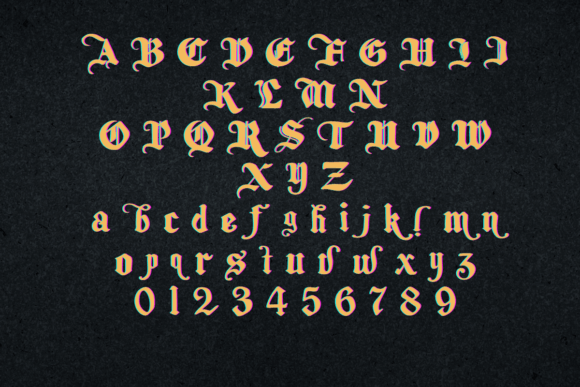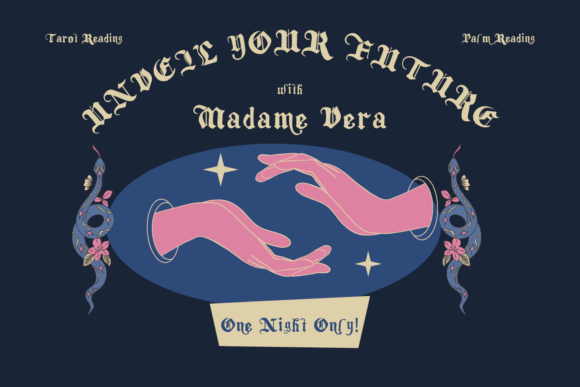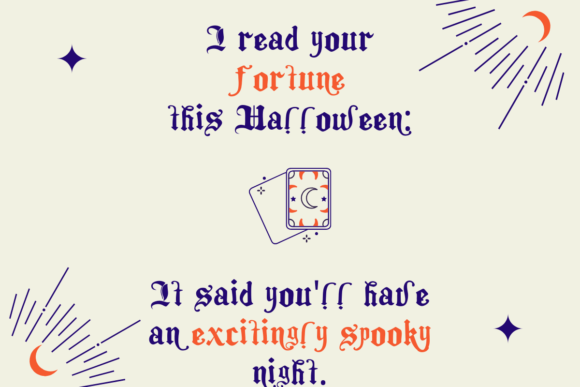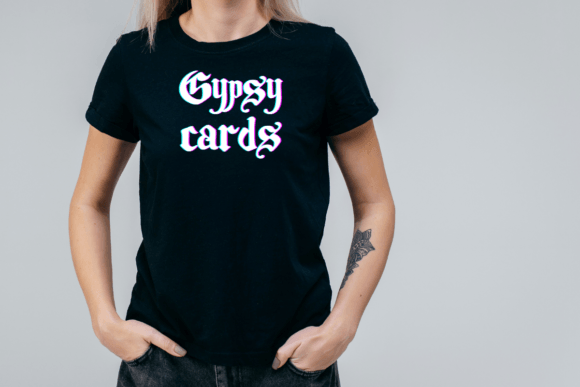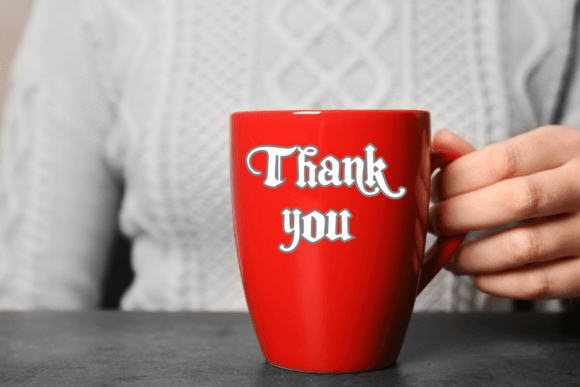
Introducing Gypsy Cards Font: Unleash the Mystique of Bold Blackletter Typography
In the realm of typography, few fonts evoke the same level of mystique and allure as the Gypsy Cards font. This bold blackletter display font is designed to make a statement, adding a touch of vintage charm to any design project. Whether you’re a designer looking to elevate your branding, a crafter seeking to add a personal touch to your creations, or simply someone who appreciates the art of typography, Gypsy Cards is sure to captivate your audience.
The Allure of Blackletter Typography
Blackletter fonts have a rich history, dating back to the Middle Ages. Characterized by their dramatic flourishes and bold strokes, these fonts were originally used for illuminated manuscripts and Gothic texts. Over time, blackletter typography has evolved, influencing various design movements, from Victorian-era ornates to modern-day digital art. Gypsy Cards font is a contemporary take on this classic style, infused with a unique blend of elegance and edginess.
What Makes Gypsy Cards Font Stand Out
So, what sets Gypsy Cards apart from other blackletter fonts? Here are a few key features that make it an exceptional choice for designers and crafters:
• Bold and Striking: Gypsy Cards font boasts a bold, eye-catching design that’s perfect for making a statement. Its striking style demands attention, ensuring your project stands out from the crowd.
• Vintage Charm: With its roots in traditional blackletter typography, Gypsy Cards exudes a sense of nostalgia and timelessness. This font is ideal for projects that require a touch of classic elegance, such as wedding invitations, posters, or logos.
• Versatile: Gypsy Cards font is incredibly versatile, suitable for a wide range of design applications, from digital projects (like social media graphics and website headers) to print materials (such as brochures, flyers, and business cards).
• Easy to Read: Despite its ornate appearance, Gypsy Cards font is surprisingly legible, making it perfect for use in titles, headings, and short paragraphs.
Gypsy Cards font is an excellent addition to any designer’s or crafter’s toolkit. Here are some project ideas to get you started:
• Posters and Flyers: Create eye-catching posters and flyers for events, promotions, or announcements that require a bold, attention-grabbing font.
• Logos and Branding: Use Gypsy Cards font to develop a unique logo or brand identity that exudes confidence and sophistication.
• Wedding and Party Decor: Add a touch of vintage elegance to your wedding or party decor with Gypsy Cards font, perfect for invitations, place cards, and signage.
• Digital Art and Graphics: Incorporate Gypsy Cards font into your digital art, social media graphics, and website headers to create a cohesive and stylish visual identity.
Unlock the Full Potential of Gypsy Cards Font
To get the most out of Gypsy Cards font, experiment with different design elements, such as:
• Color Schemes: Pair Gypsy Cards font with rich, bold colors to amplify its dramatic effect or opt for a more subtle approach with pastel hues.
• Textures and Patterns: Combine Gypsy Cards font with textures and patterns to add depth and visual interest to your design.
• Illustrations and Graphics: Integrate Gypsy Cards font with custom illustrations or graphics to create a unique and captivating visual narrative.
In conclusion, Gypsy Cards font is an exceptional choice for designers and crafters seeking to add a touch of mystique and vintage charm to their projects. Its bold, striking style and versatility make it perfect for a wide range of design applications. Unlock the full potential of Gypsy Cards font and discover a world of creative possibilities.